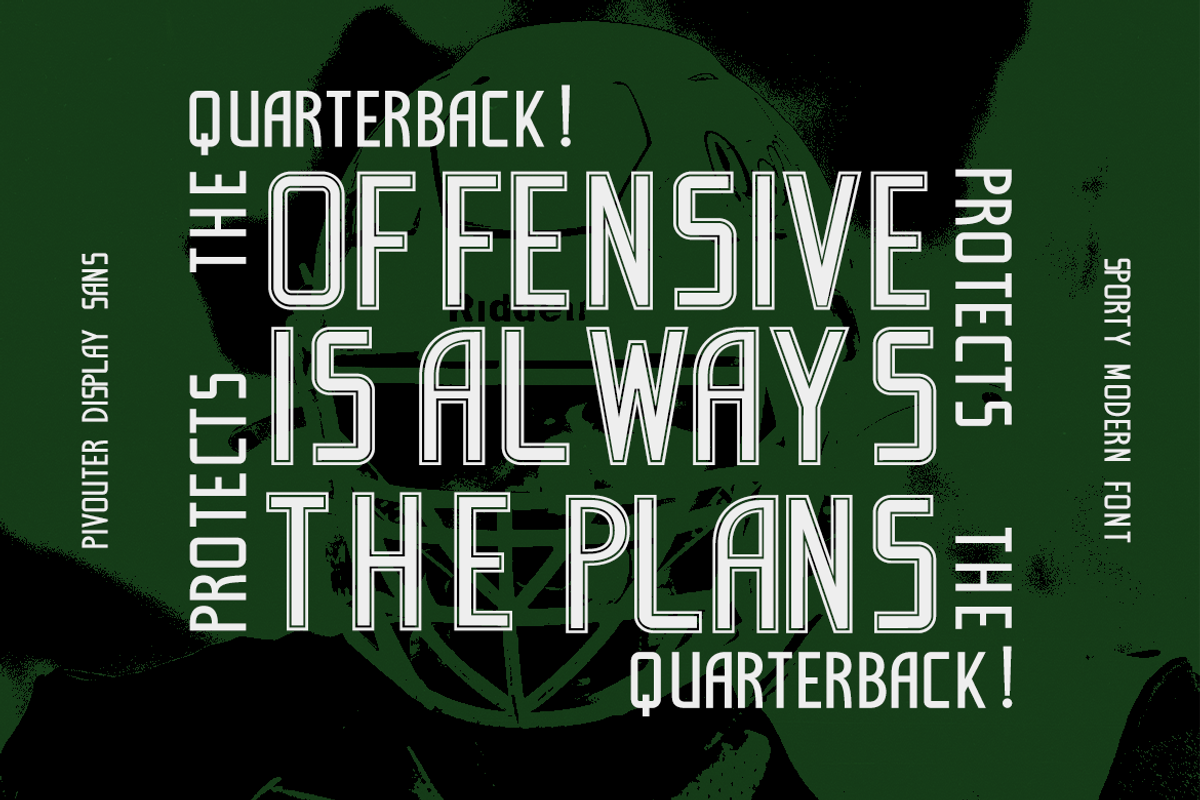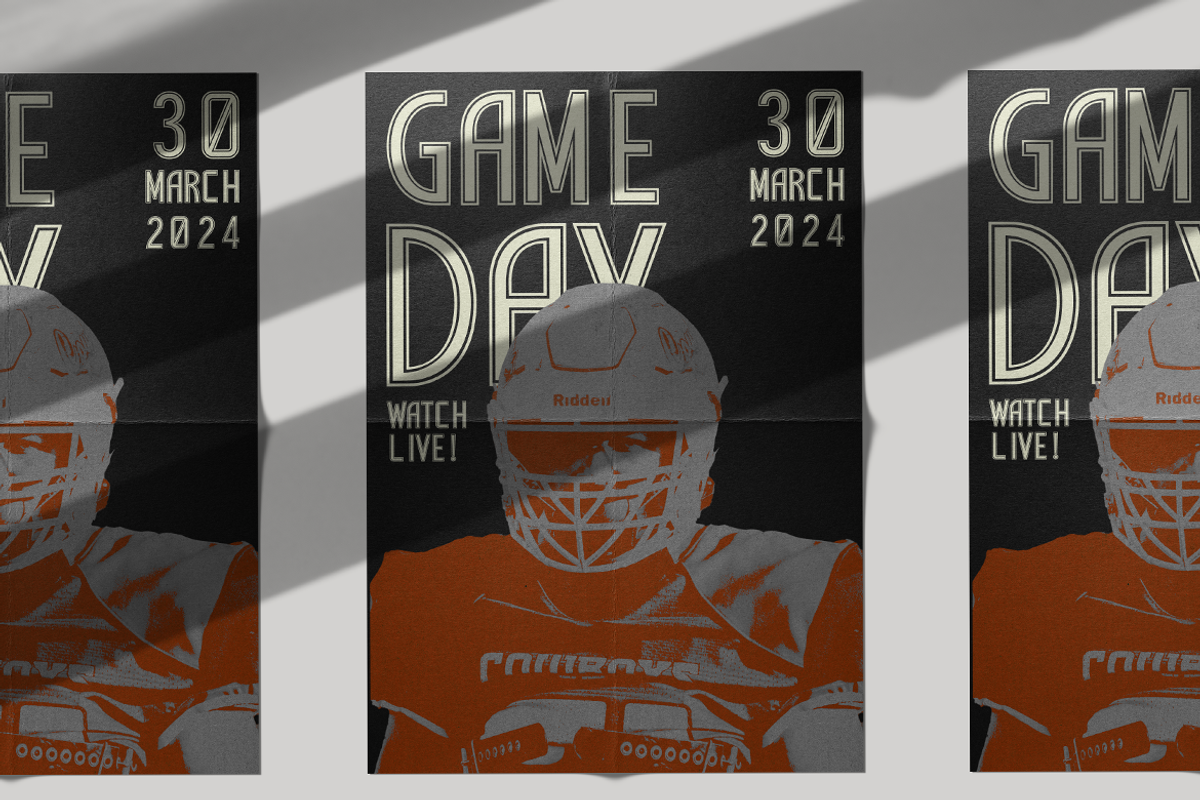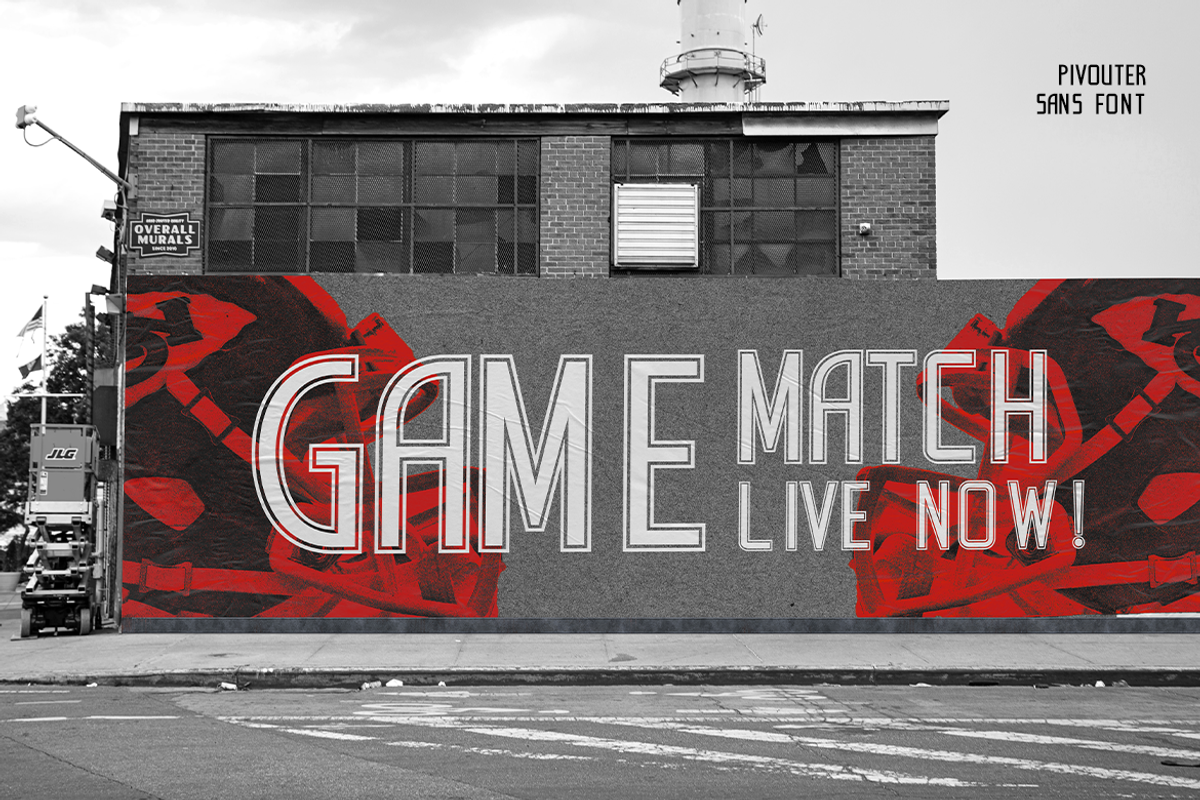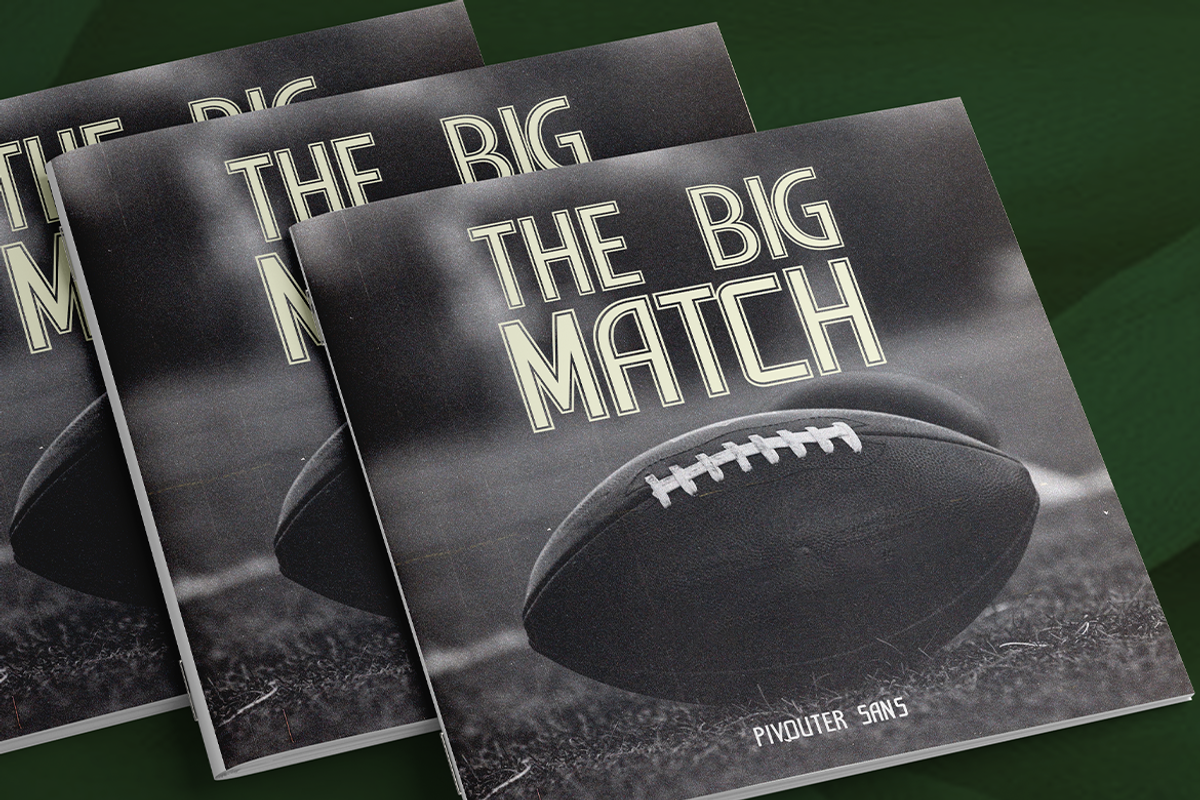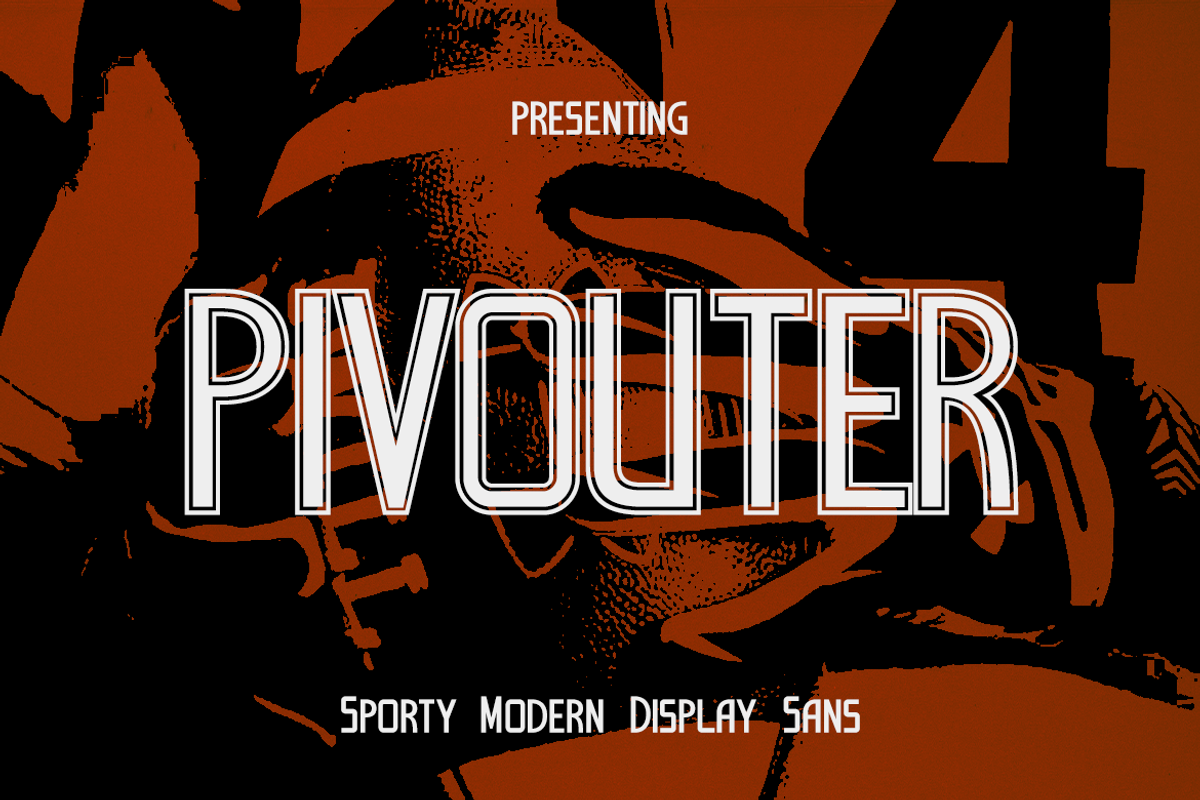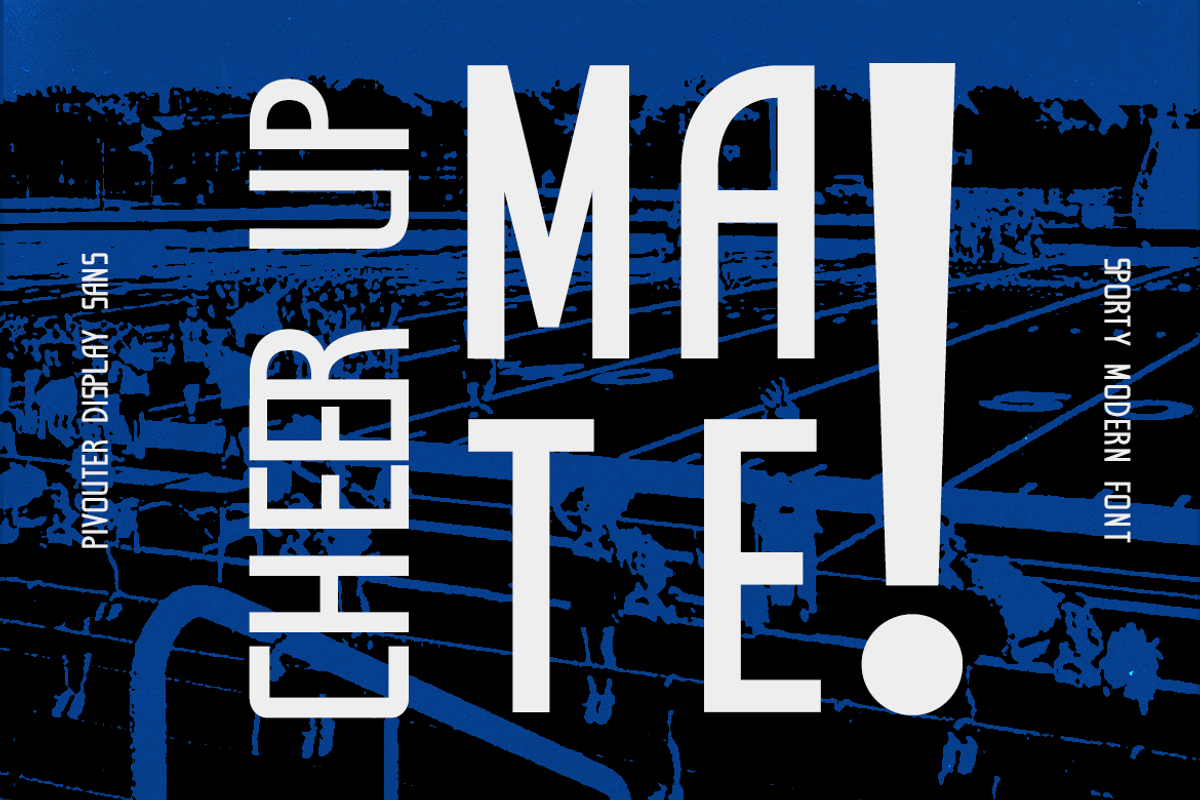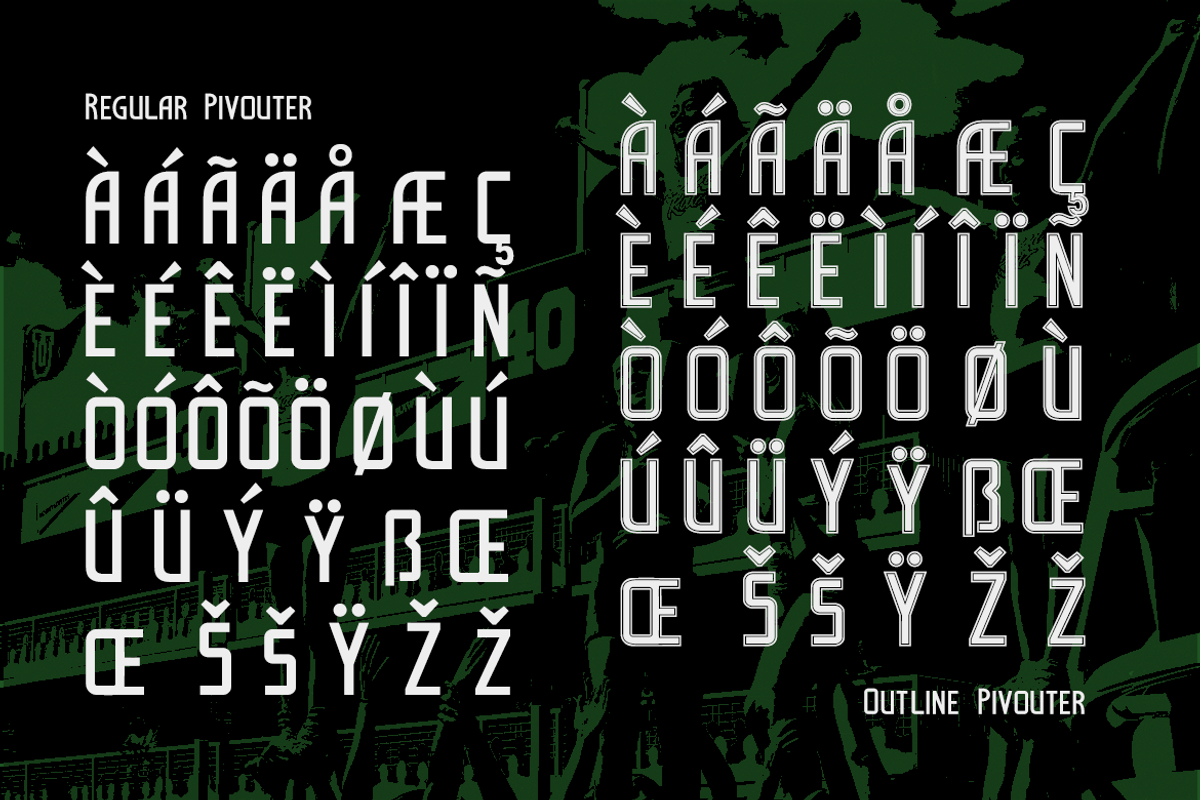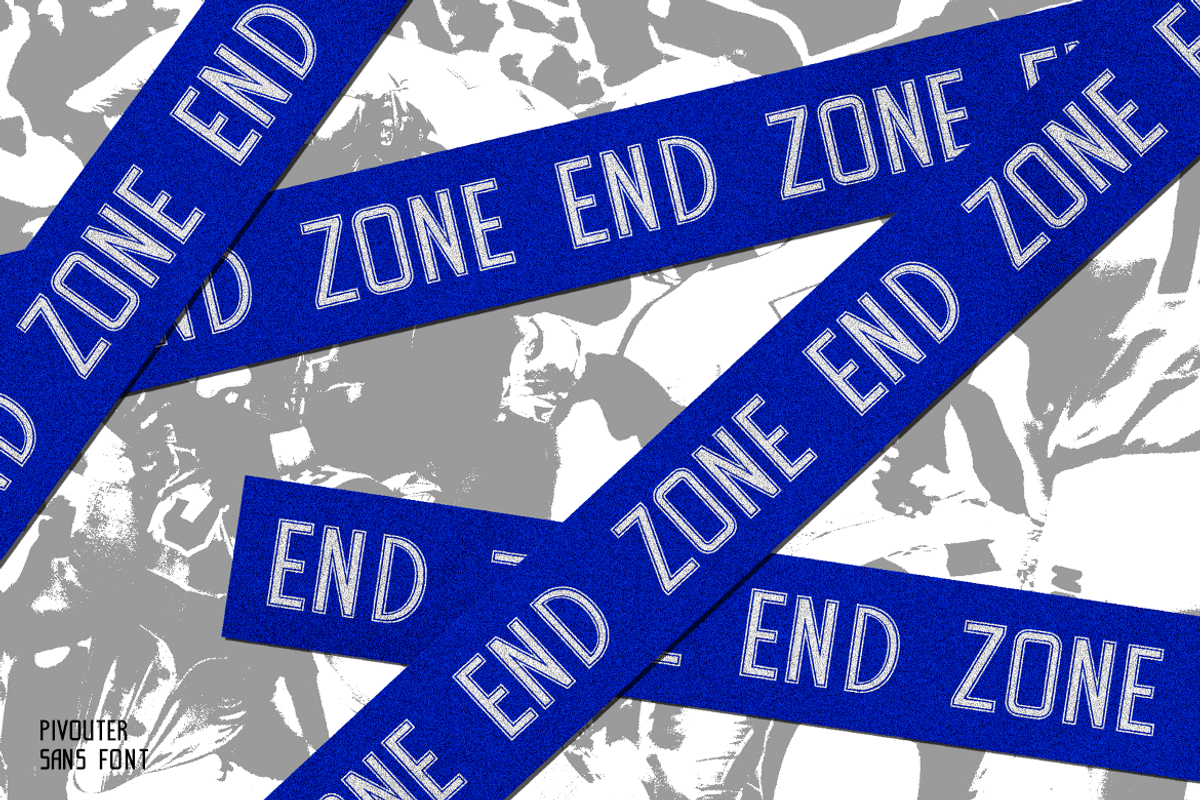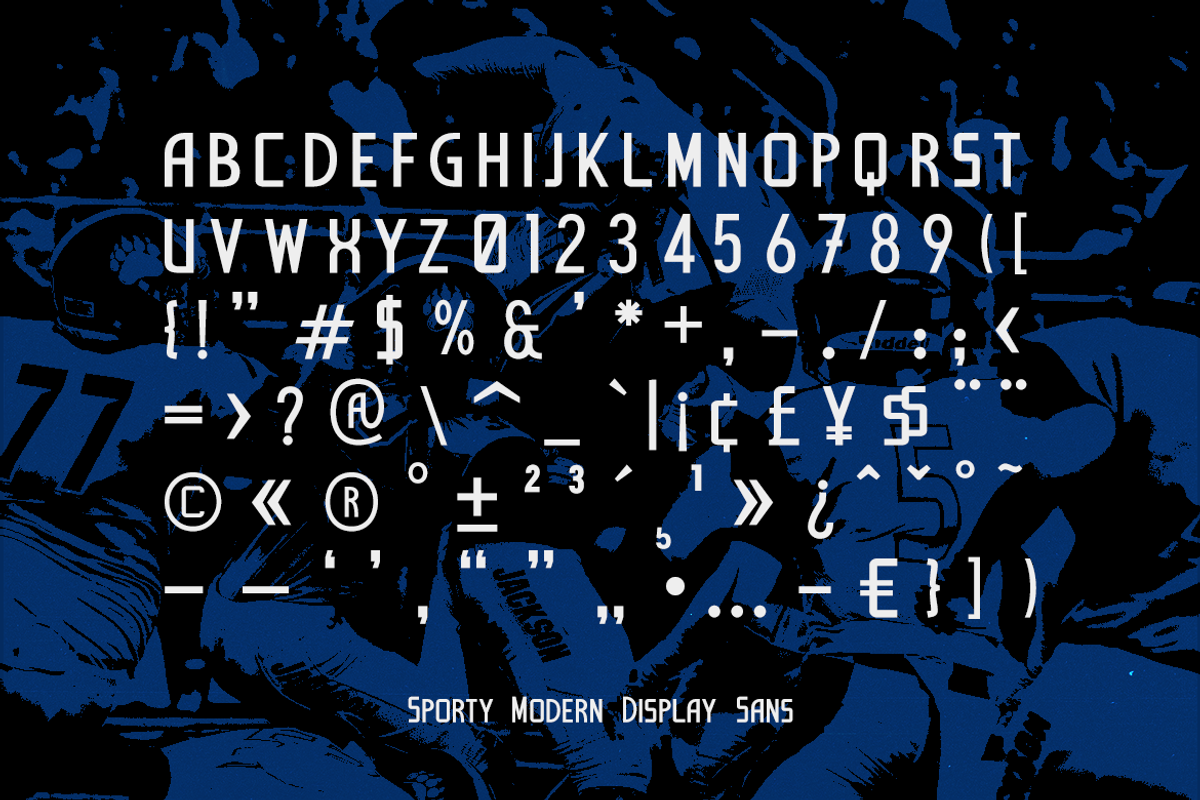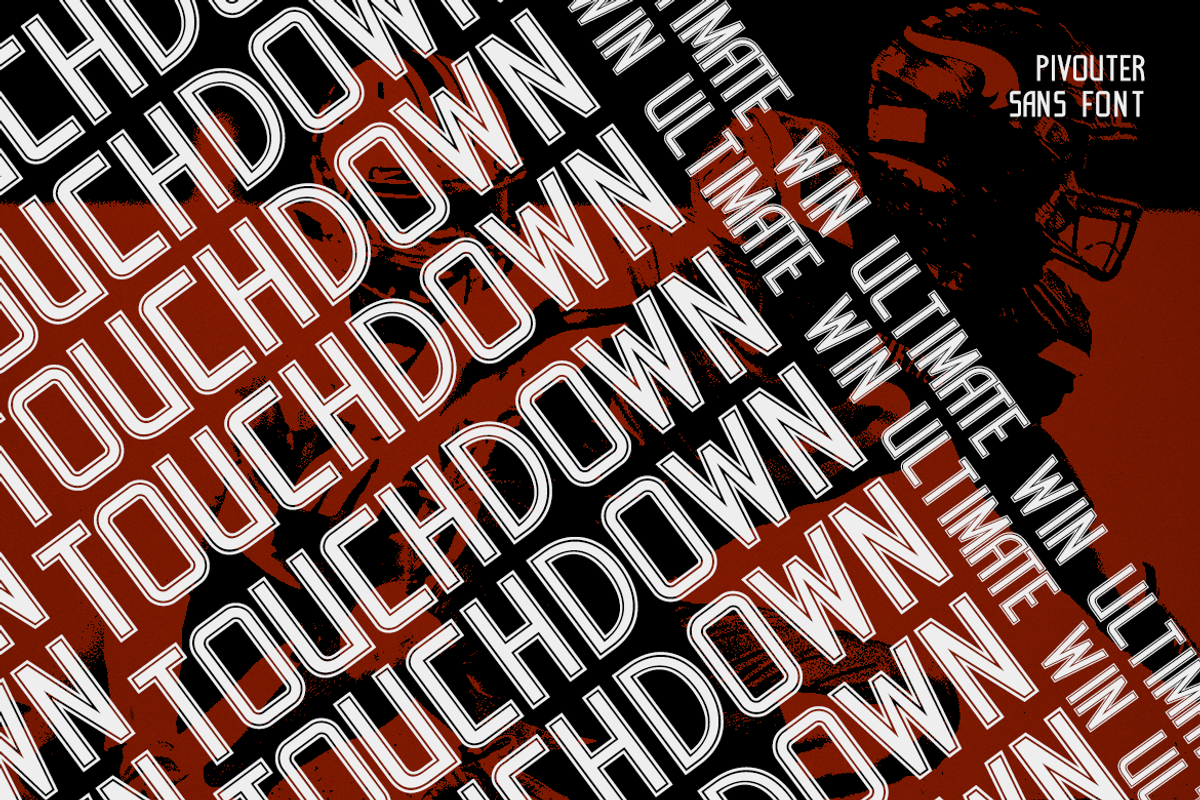
CF Pivouter - Sport Modern Sans
Pivouter is a modern sans-serif font that effortlessly blends sporty flair with clean elegance. Its two distinct versions - regular and outlined stroke - offer versatility for a range of creative projects. Whether you're designing a dynamic logo, a high-impact website, or an eye-catching poster, Pivotuer's unique character will add a touch of contemporary energy with a hint of refined style.